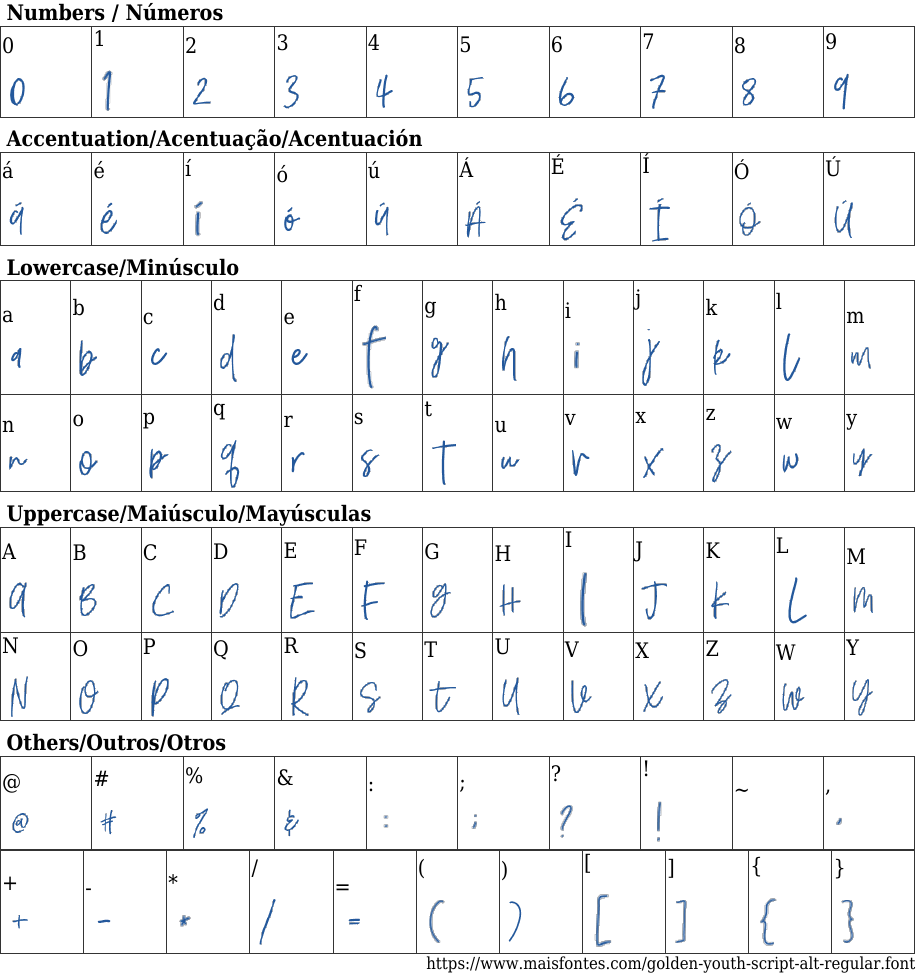
Golden Youth Font Free . Logos & branding, packaging design, social media posts, advertisements & product designs. The golden youth script alternative font has a script typography and is great for elegant invitation art. Make the art more fun because. This combination of fonts lends a harmonious modernity and luxury. The golden youth script font has a script typography and is great for elegant. Link to purchase full version and commercial license : Golden youth typeface consists of sans and script typefaces; Golden youth font is free for personal use.
The golden youth script font has a script typography and is great for elegant. This combination of fonts lends a harmonious modernity and luxury. Golden youth font is free for personal use. The golden youth script alternative font has a script typography and is great for elegant invitation art. Link to purchase full version and commercial license : Golden youth typeface consists of sans and script typefaces; Logos & branding, packaging design, social media posts, advertisements & product designs. Make the art more fun because.
Golden Youth Font Free Golden youth font is free for personal use. Make the art more fun because. The golden youth script alternative font has a script typography and is great for elegant invitation art. Golden youth typeface consists of sans and script typefaces; The golden youth script font has a script typography and is great for elegant. Logos & branding, packaging design, social media posts, advertisements & product designs. This combination of fonts lends a harmonious modernity and luxury. Link to purchase full version and commercial license :
Premium Vector Golden youth text effect editable eps cc Golden Youth Font Free Golden youth font is free for personal use. The golden youth script font has a script typography and is great for elegant. The golden youth script alternative font has a script typography and is great for elegant invitation art. Logos & branding, packaging design, social media posts, advertisements & product designs. Link to purchase full version and commercial license :. Golden Youth Font Free.
Golden Youth Font Duo Font Free Download YouTube Golden Youth Font Free Logos & branding, packaging design, social media posts, advertisements & product designs. Golden youth typeface consists of sans and script typefaces; Make the art more fun because. The golden youth script font has a script typography and is great for elegant. The golden youth script alternative font has a script typography and is great for elegant invitation art. Golden youth. Golden Youth Font Free.
Golden Youth Font YouWorkForThem Golden Youth Font Free Link to purchase full version and commercial license : Golden youth typeface consists of sans and script typefaces; This combination of fonts lends a harmonious modernity and luxury. Logos & branding, packaging design, social media posts, advertisements & product designs. Make the art more fun because. The golden youth script alternative font has a script typography and is great for. Golden Youth Font Free.
字体Golden Youth Font Duo 4款款现代时尚无衬线流畅英文字体CGtimo Golden Youth Font Free The golden youth script font has a script typography and is great for elegant. Link to purchase full version and commercial license : The golden youth script alternative font has a script typography and is great for elegant invitation art. Golden youth typeface consists of sans and script typefaces; Make the art more fun because. Golden youth font is free. Golden Youth Font Free.
Golden Youth Font Free Link to purchase full version and commercial license : The golden youth script font has a script typography and is great for elegant. This combination of fonts lends a harmonious modernity and luxury. Logos & branding, packaging design, social media posts, advertisements & product designs. The golden youth script alternative font has a script typography and is great for elegant. Golden Youth Font Free.
Shining Youth Display Font Sans Serif Fonts Creative Market Golden Youth Font Free Logos & branding, packaging design, social media posts, advertisements & product designs. The golden youth script font has a script typography and is great for elegant. Make the art more fun because. This combination of fonts lends a harmonious modernity and luxury. Golden youth typeface consists of sans and script typefaces; Link to purchase full version and commercial license :. Golden Youth Font Free.
Golden Youth Font Fontspring Golden Youth Font Free The golden youth script alternative font has a script typography and is great for elegant invitation art. The golden youth script font has a script typography and is great for elegant. This combination of fonts lends a harmonious modernity and luxury. Golden youth font is free for personal use. Make the art more fun because. Logos & branding, packaging design,. Golden Youth Font Free.
Identifont Golden Youth Script Golden Youth Font Free The golden youth script alternative font has a script typography and is great for elegant invitation art. Make the art more fun because. This combination of fonts lends a harmonious modernity and luxury. Logos & branding, packaging design, social media posts, advertisements & product designs. Link to purchase full version and commercial license : Golden youth font is free for. Golden Youth Font Free.
Golden Youth Font Fonts Hut Golden Youth Font Free Golden youth typeface consists of sans and script typefaces; The golden youth script alternative font has a script typography and is great for elegant invitation art. This combination of fonts lends a harmonious modernity and luxury. Link to purchase full version and commercial license : The golden youth script font has a script typography and is great for elegant. Golden. Golden Youth Font Free.